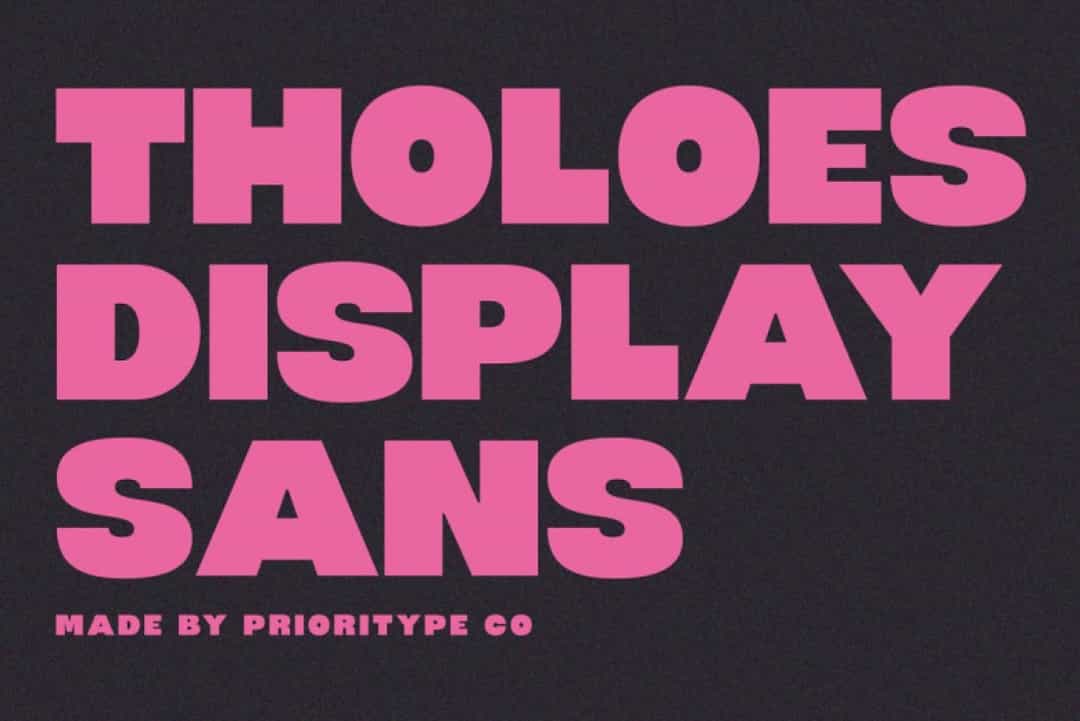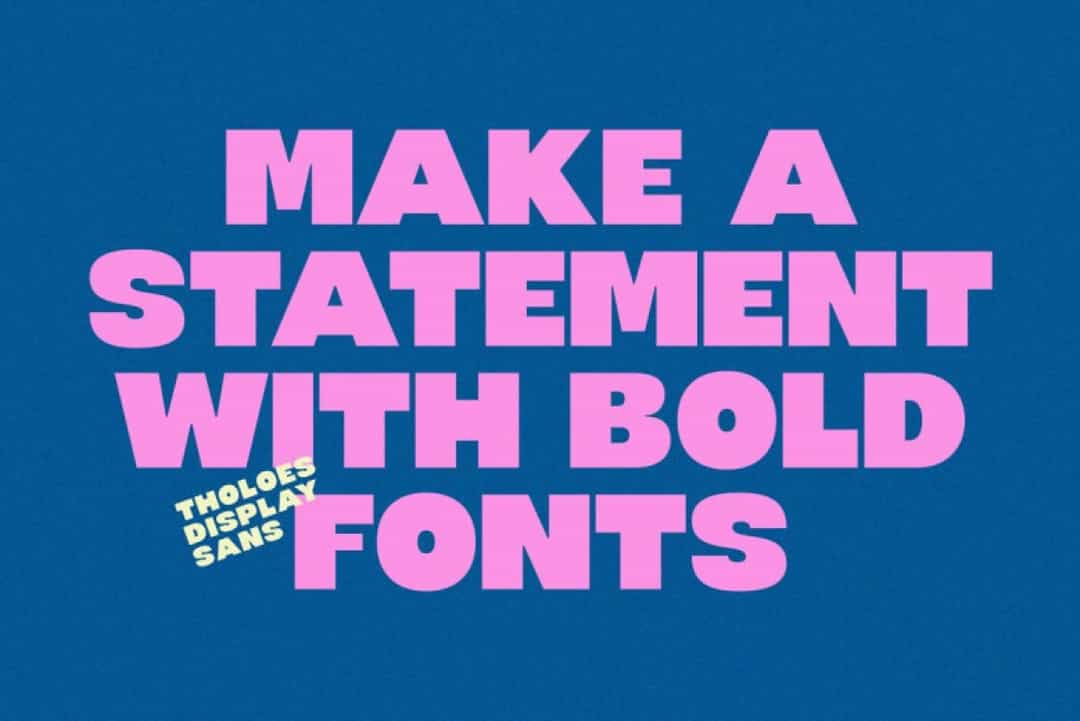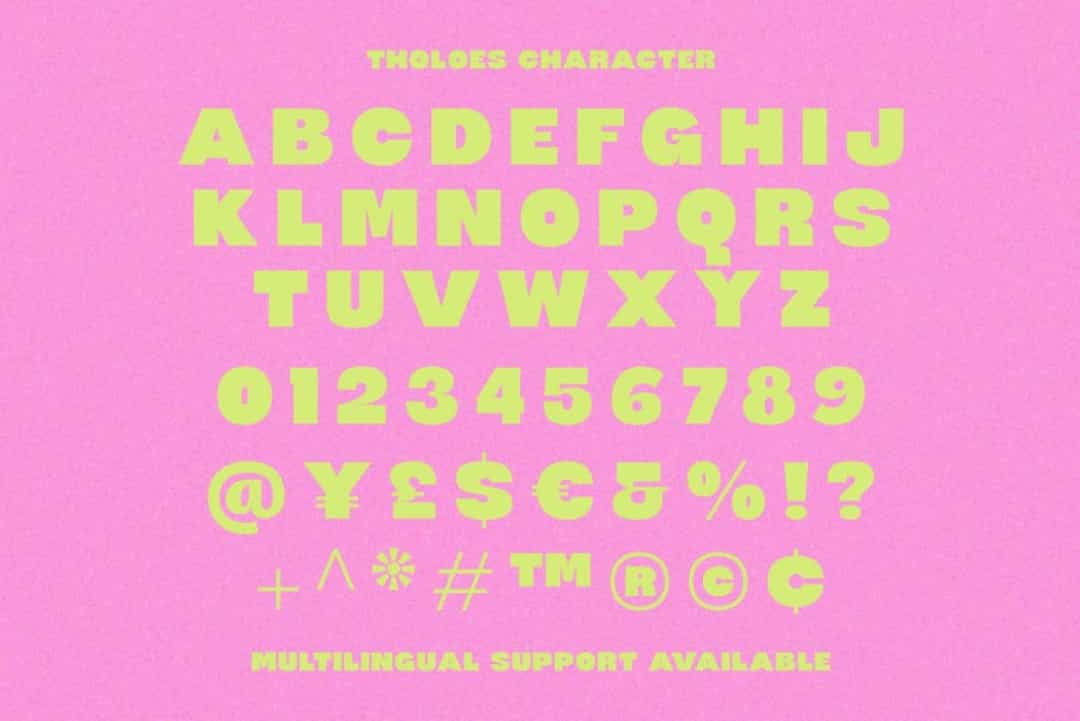
Make your designs pop with “Tholoes”, an energetic, bold show sans font with exudes confidence. Perfect as a poster font, brand logo design or social platform graphic – its powerful presence draws the eye and leaves an impactful mark that lasts. Use “Tholoes” to let your creativity flourish!